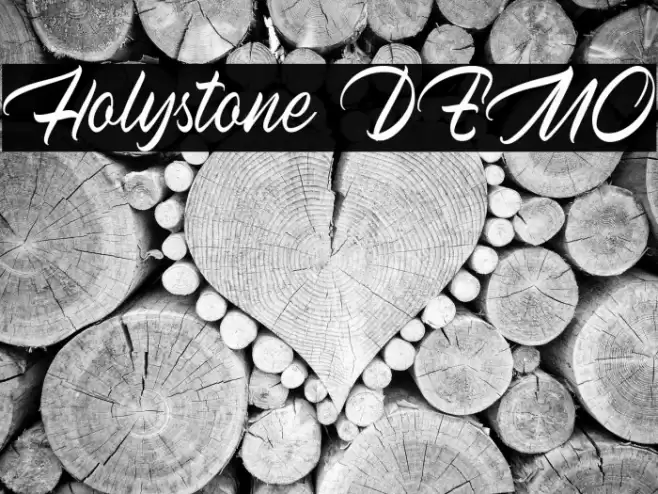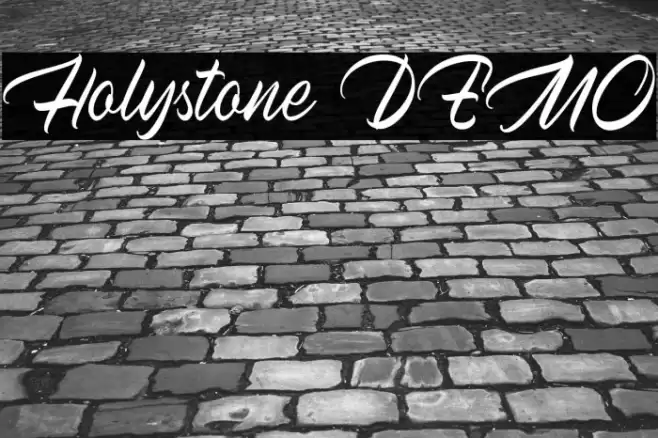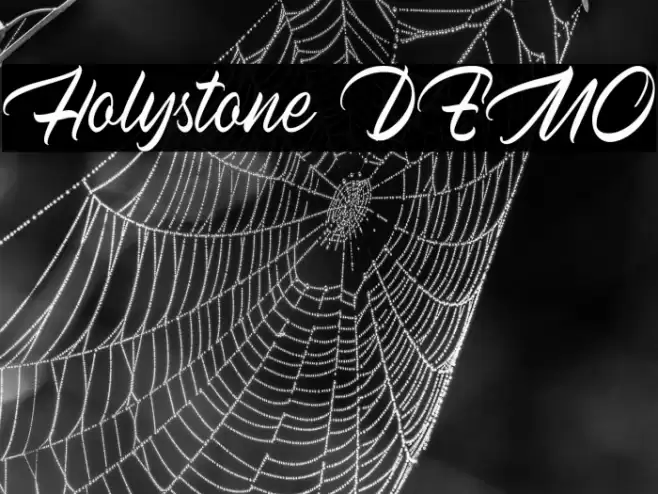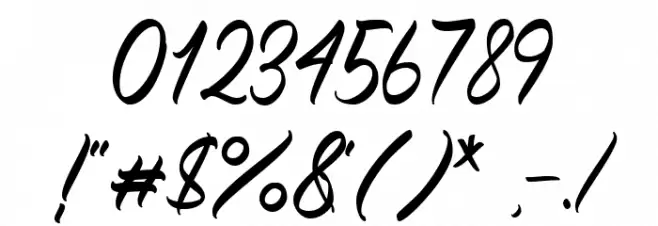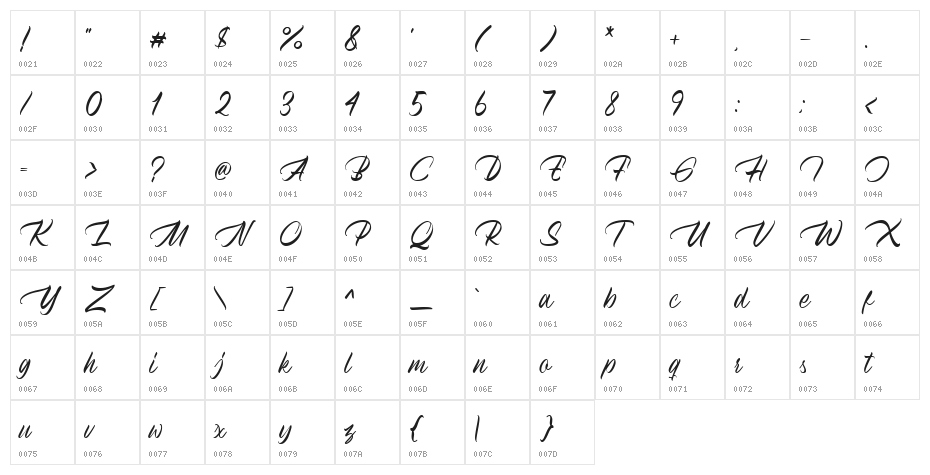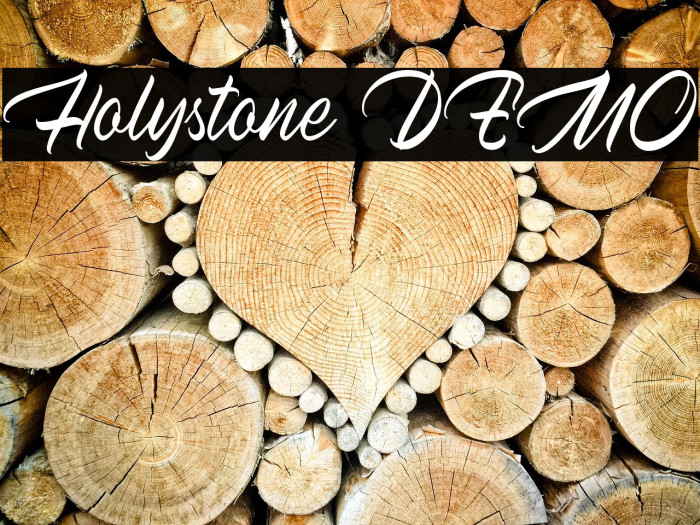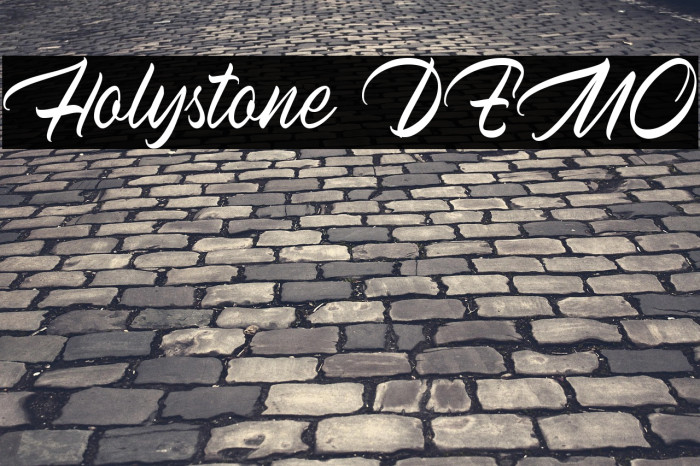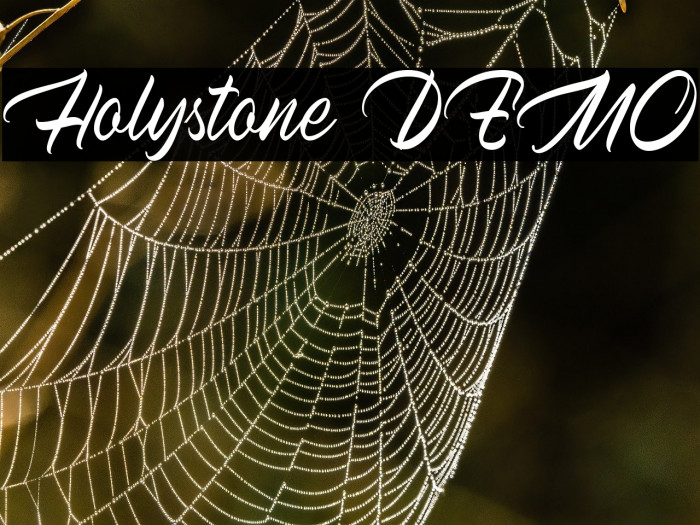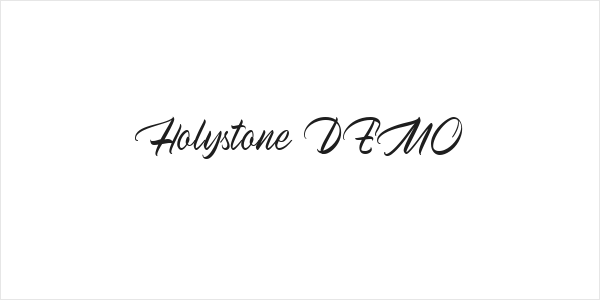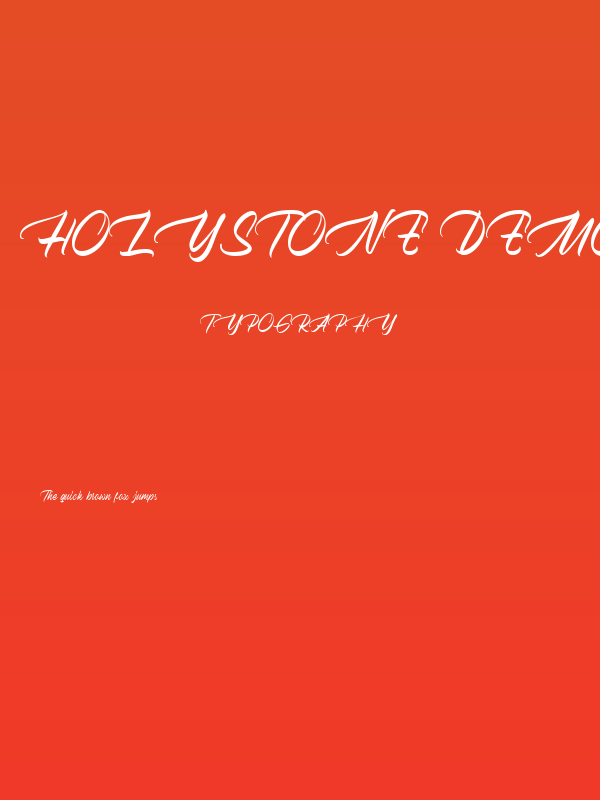
Holystone DEMO Font
Holystone DEMO Description
This font exudes a dynamic and elegant script style, characterized by its fluid and cursive strokes. The uppercase letters are bold and sweeping, with a sense of movement that suggests a handwritten quality. The lowercase letters maintain this fluidity, offering a harmonious balance between formality and casual flair. Numbers and special characters are crafted with the same attention to detail, ensuring consistency across all glyphs. The overall appearance is both sophisticated and approachable, making it suitable for a variety of creative applications.
A dynamic and elegant script font with fluid, cursive strokes from Regular fonts.
- Proposed Projects: Ideal for wedding invitations, branding, greeting cards, and elegant logo designs.
- Overall Style: Elegant, Handwritten
- Use Case: Logos, Invitations, Branding